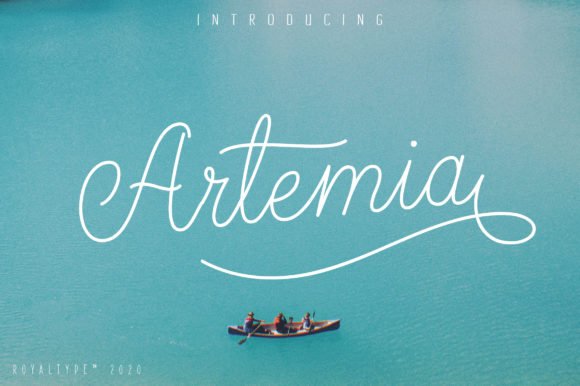
Introduction to Artemia Font
Artemia is a magical script font carefully created with a touch of elegance.
This is a beautiful combination of timeless elegance and authentic calligraphy It features an incredibly classic style, while still keeping a friendly feel.